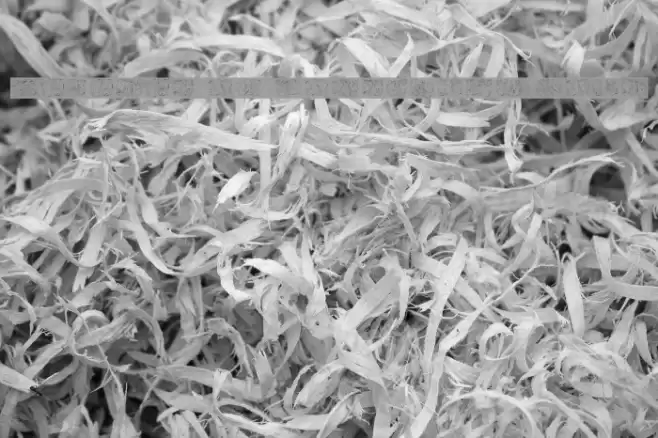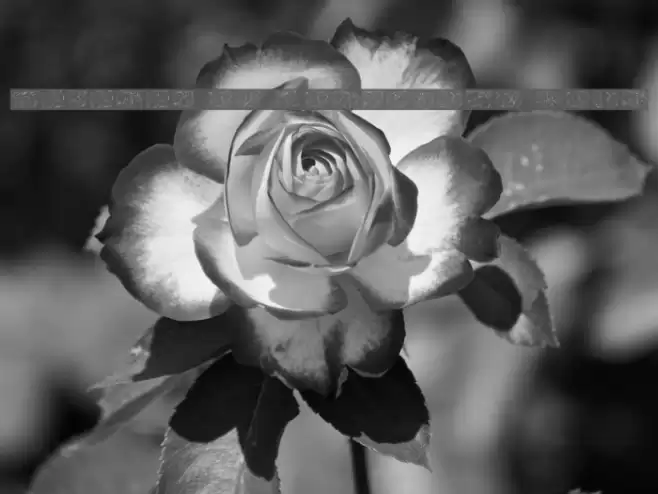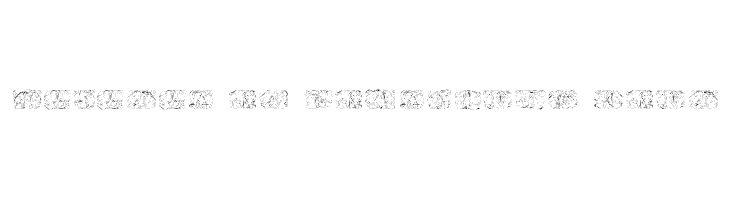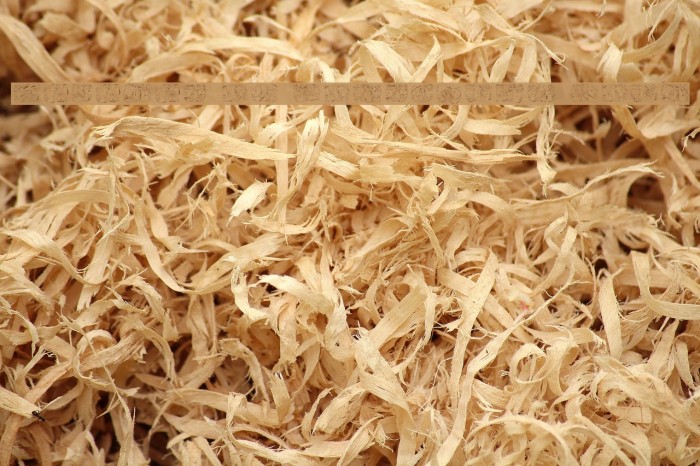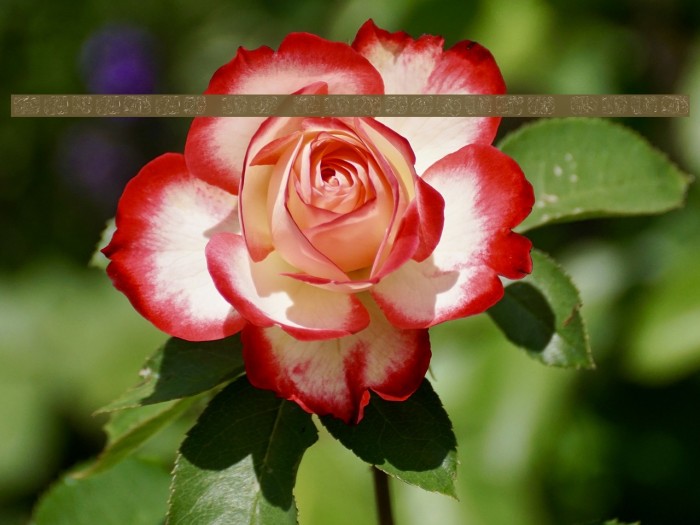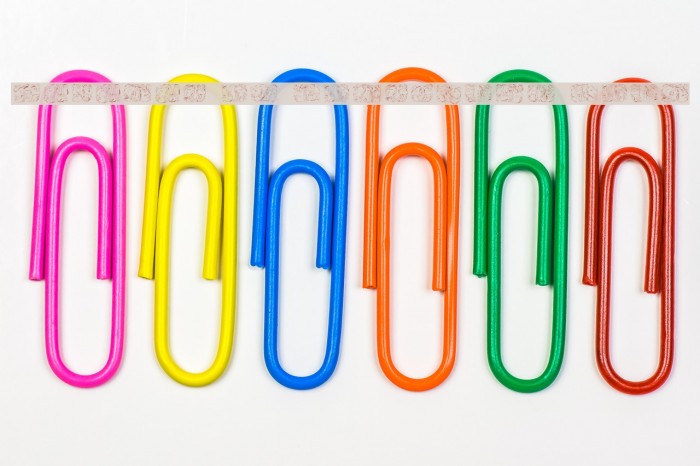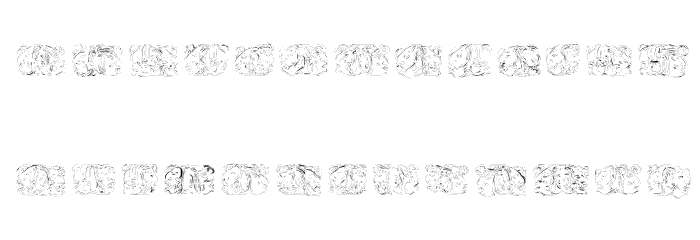
Sipirit of Montezuma Four Font
Sipirit of Montezuma Four Description
This font features an intricate and decorative style, reminiscent of ancient and tribal art. Each character is adorned with elaborate patterns and textures, giving it a unique and artistic appearance. The design is highly detailed, with a focus on ornamental elements that create a sense of depth and complexity. The font's aesthetic is both bold and captivating, making it ideal for projects that require a touch of exotic flair. Its distinctiveness lies in the fusion of traditional motifs with a modern twist, resulting in a visually striking typeface that stands out in any context.
An intricate and decorative font with tribal-inspired patterns from Uncategorized fonts.
- Proposed Projects: Ideal for cultural event posters, artistic book covers, themed invitations, and branding for creative industries.